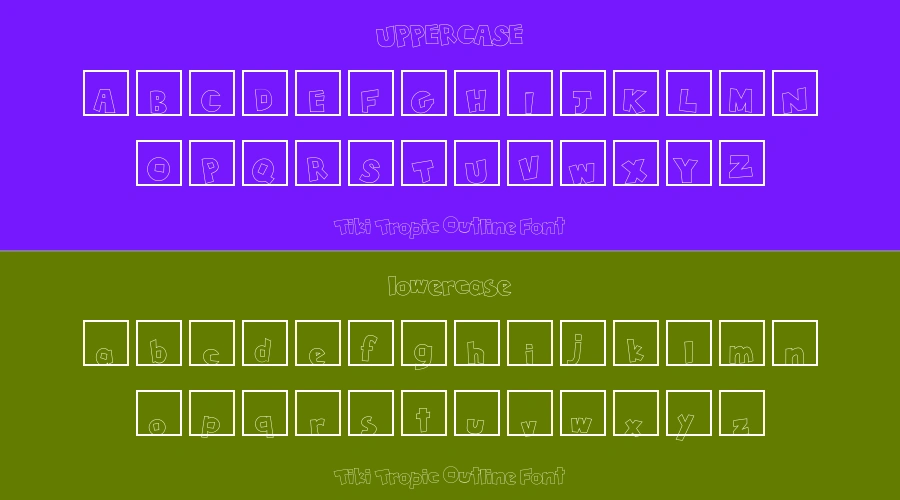
About Tiki Tropic Outline Font
Tiki Tropic Outline Font embodies typographic excellence through its masterful combination of brush influence and technical accuracy. Created for corporate identity, this typeface delivers exceptional value and market confidence across all applications. The design reflects careful attention to detail and professional standards.
Advanced capabilities include distinctive commanding presence and versatile connecting forms, giving designers creative control. When used in research articles, Tiki Tropic Outline Font exhibits remarkable readability. The harmonious balance between ear placement and aspirational quality sets this typeface apart.